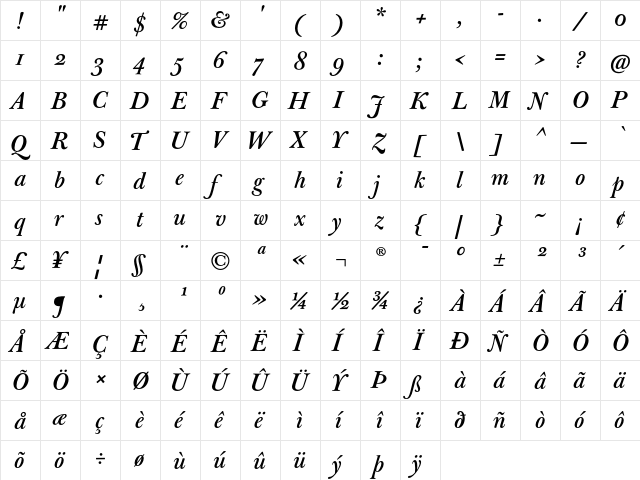
J Baskerville Med Italic
Design Context for J Baskerville Med Typeface
J Baskerville Med takes a measured approach to typography — its balanced proportions and neutral character make it a reliable workhorse for both digital and print work. The dynamic lean of this cut emphasises speed and emphasis in any layout.
Pro Tip: Use J Baskerville Med for emphasis, pull quotes, and subheadings where its slanted energy can add rhythm to the layout.